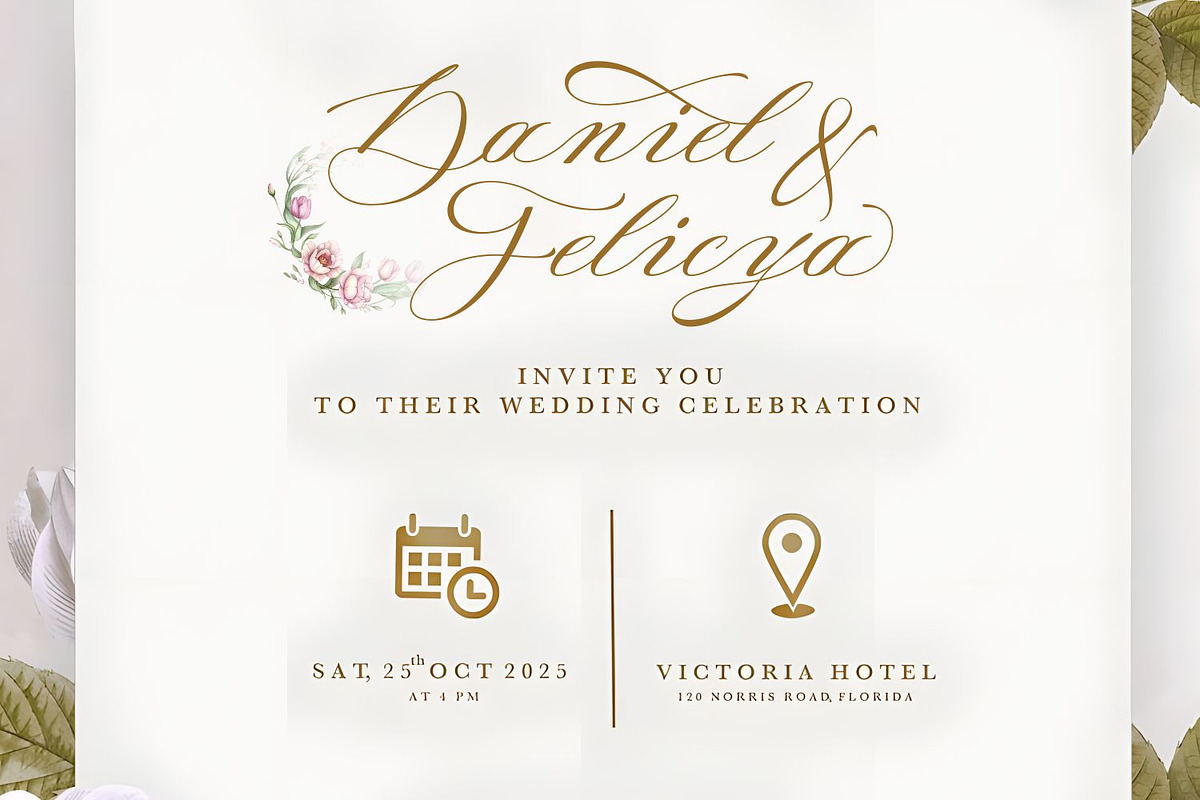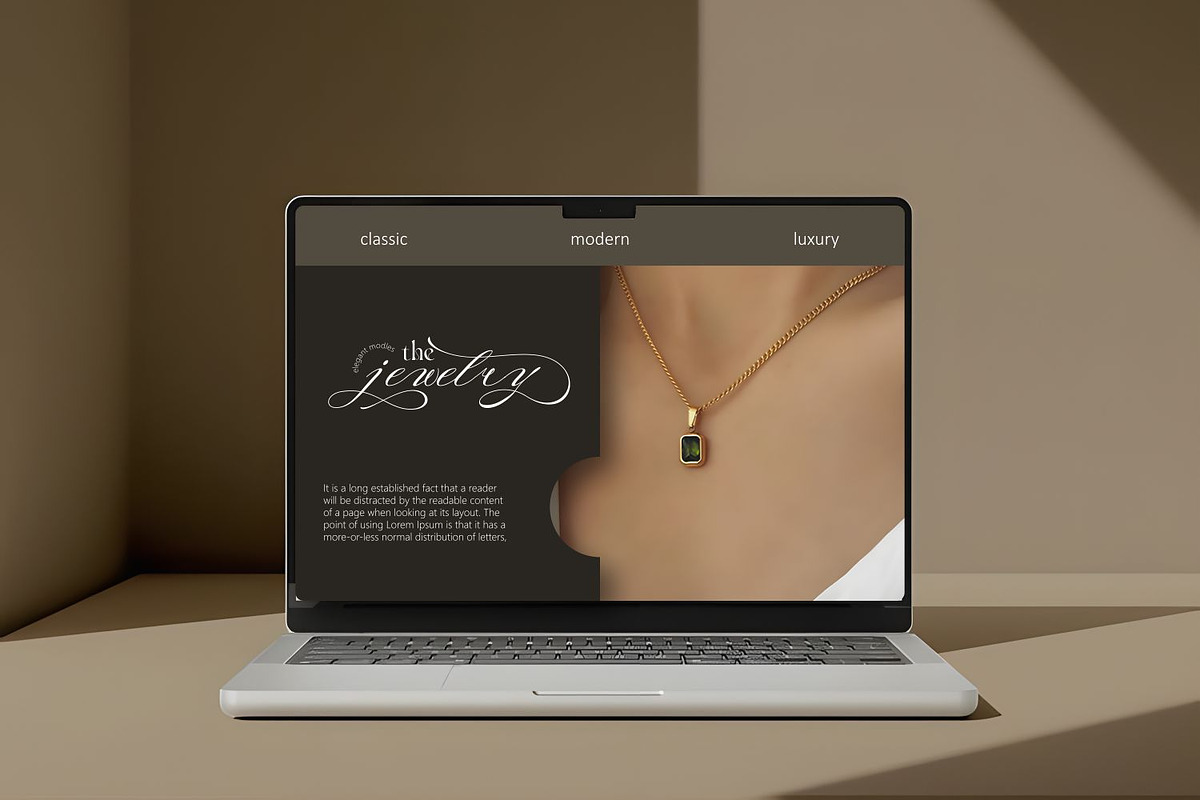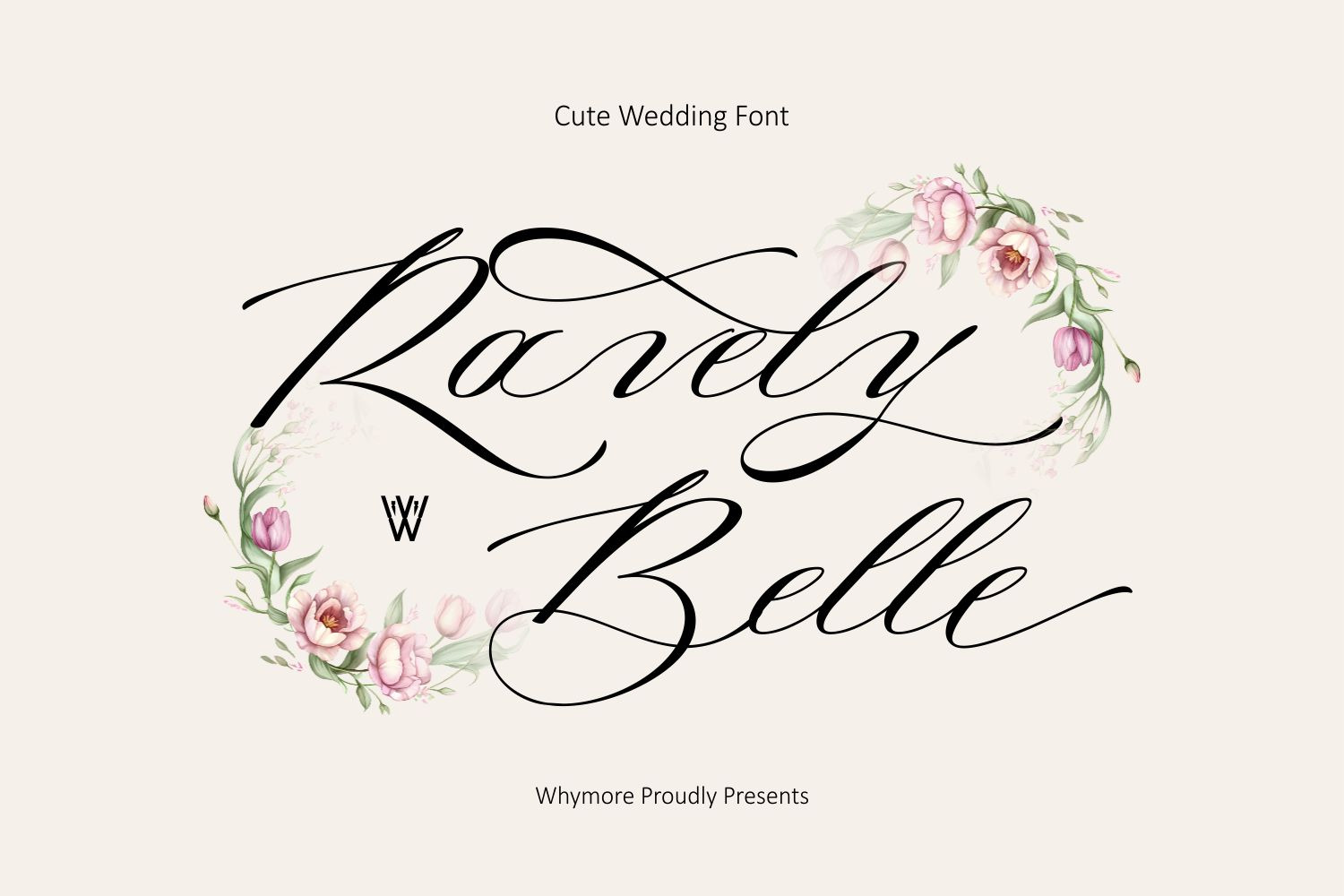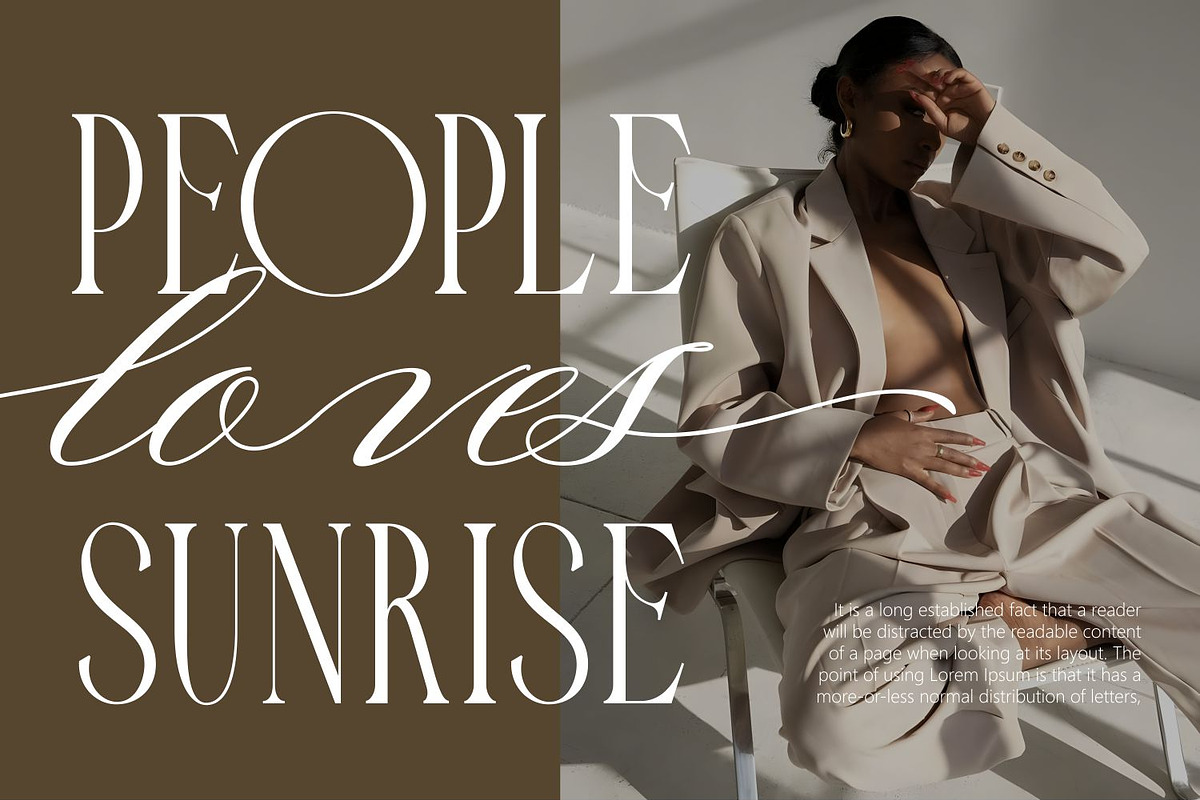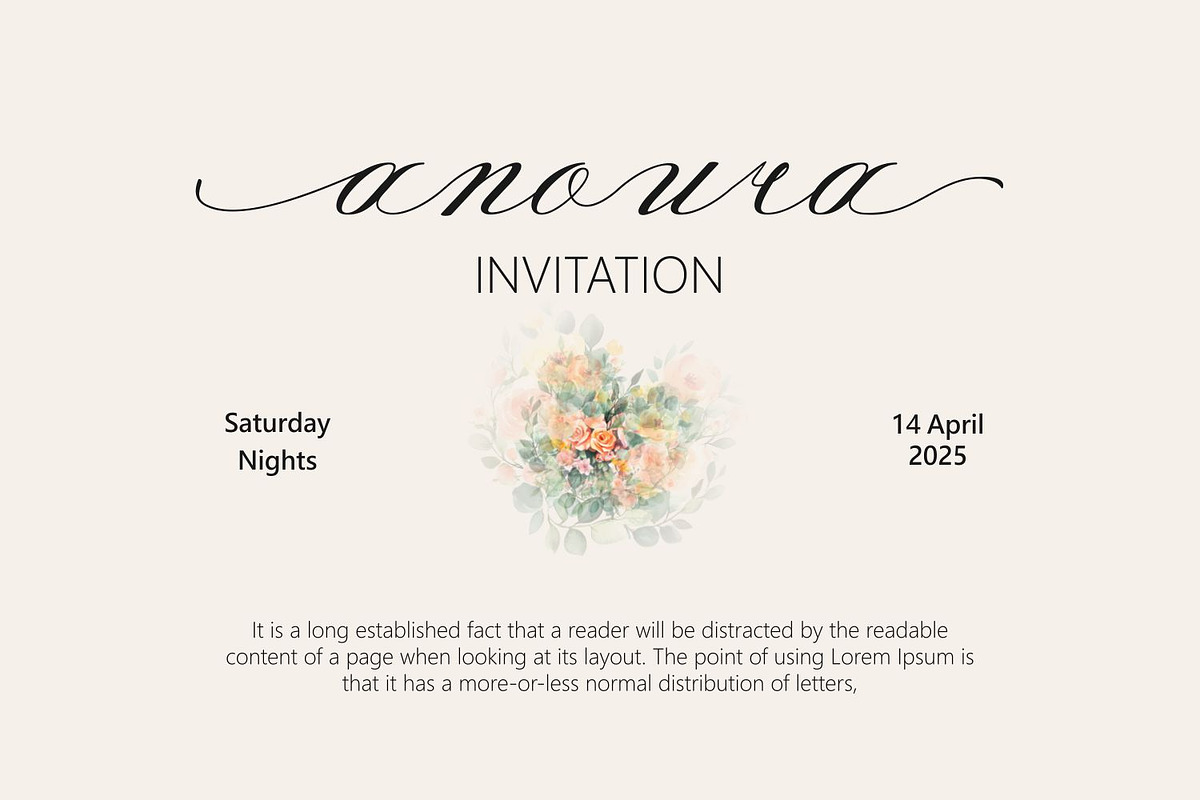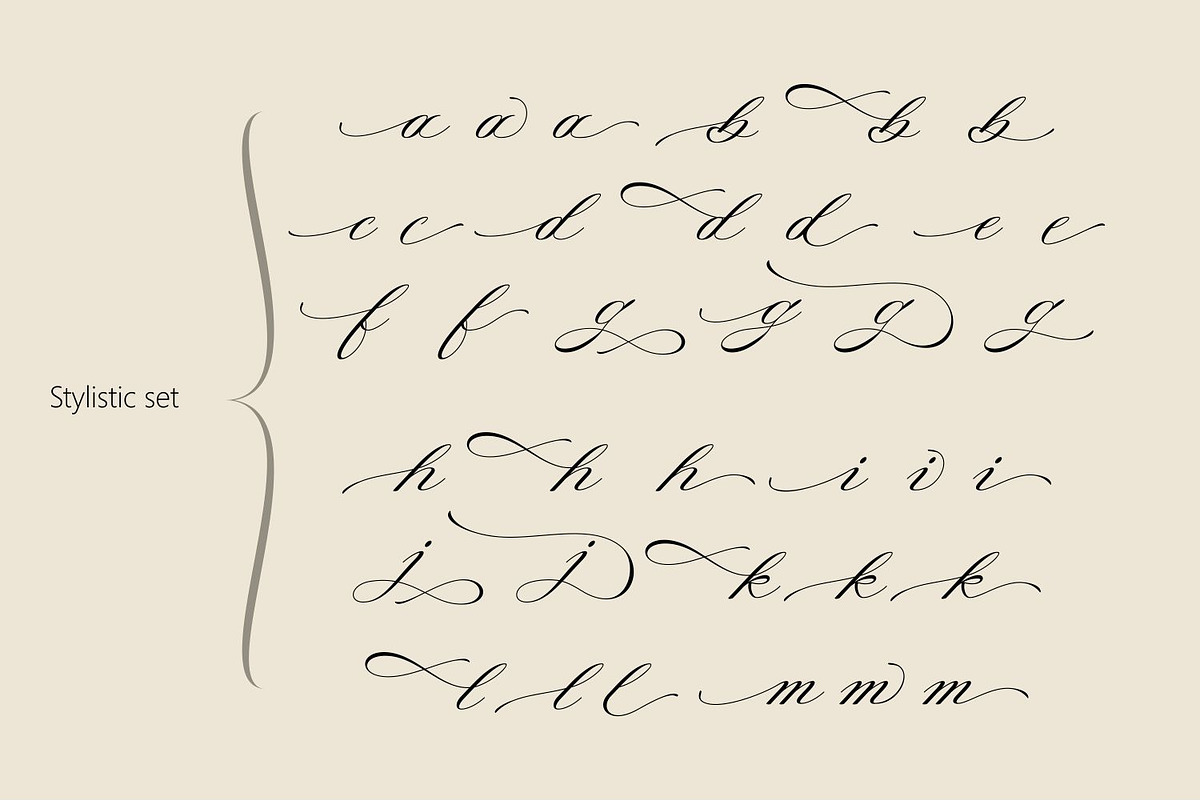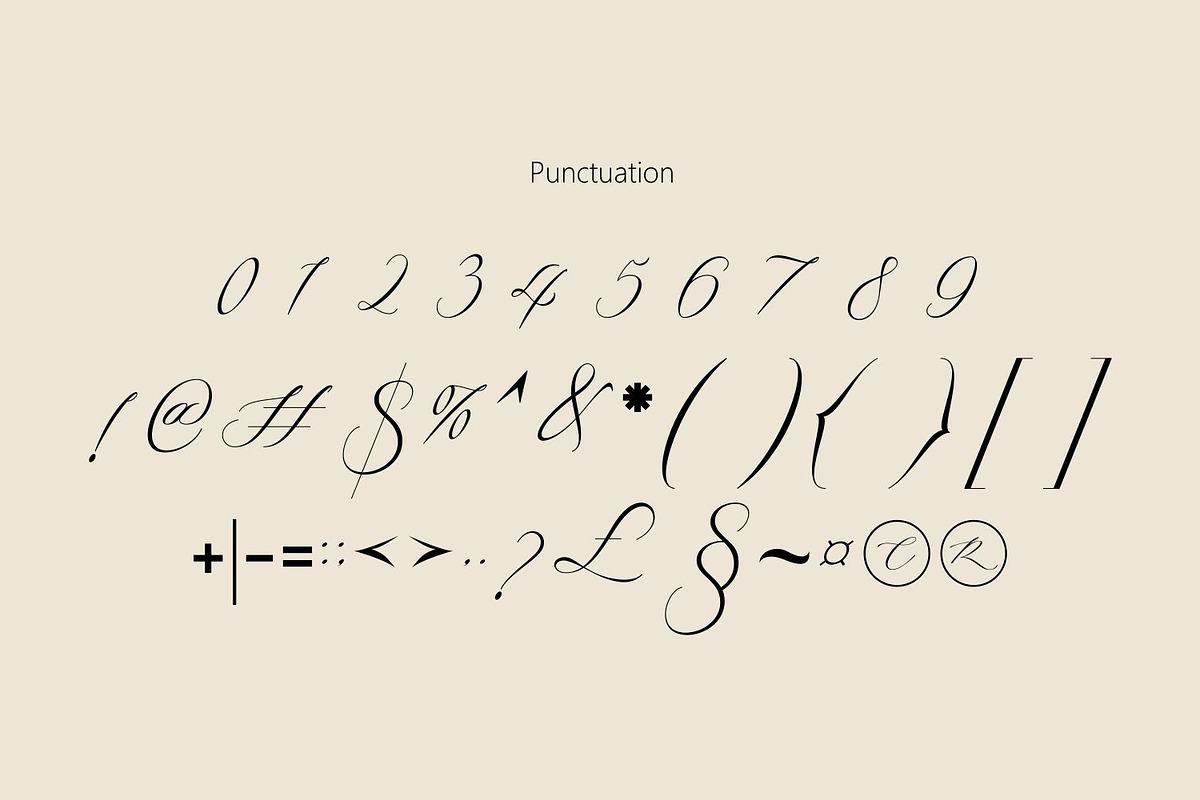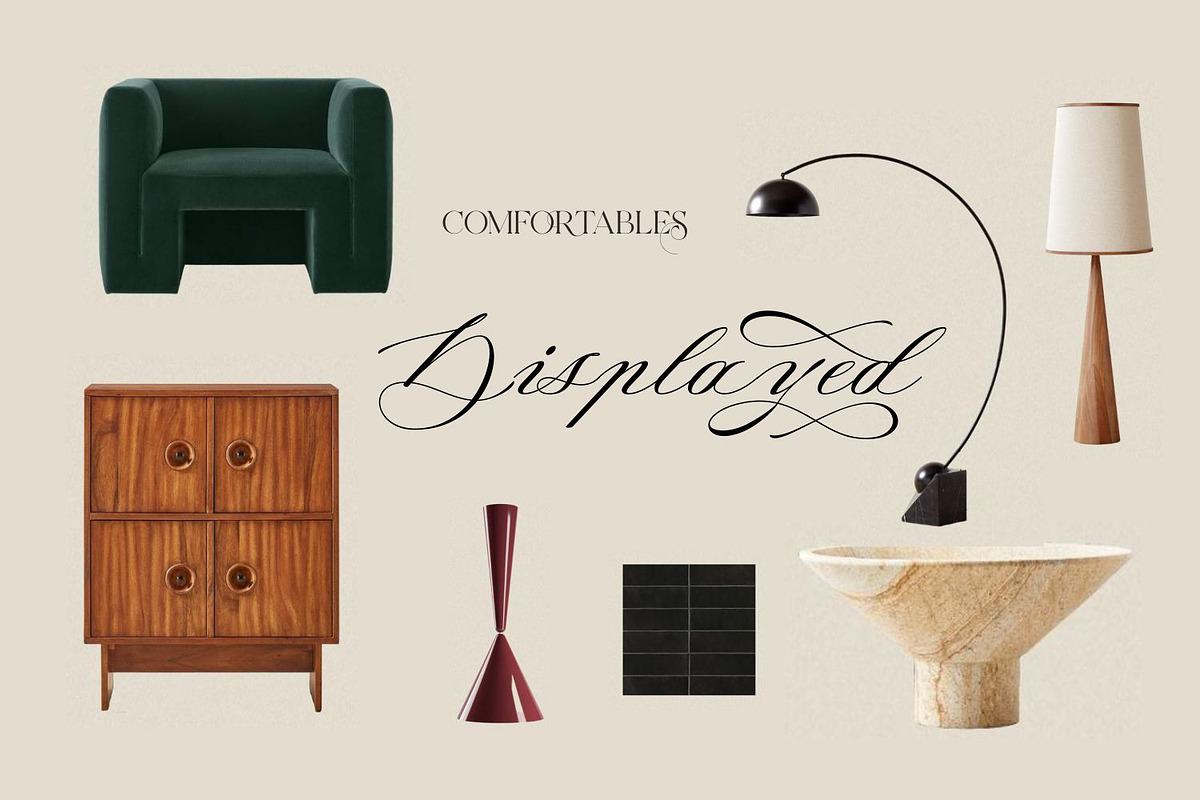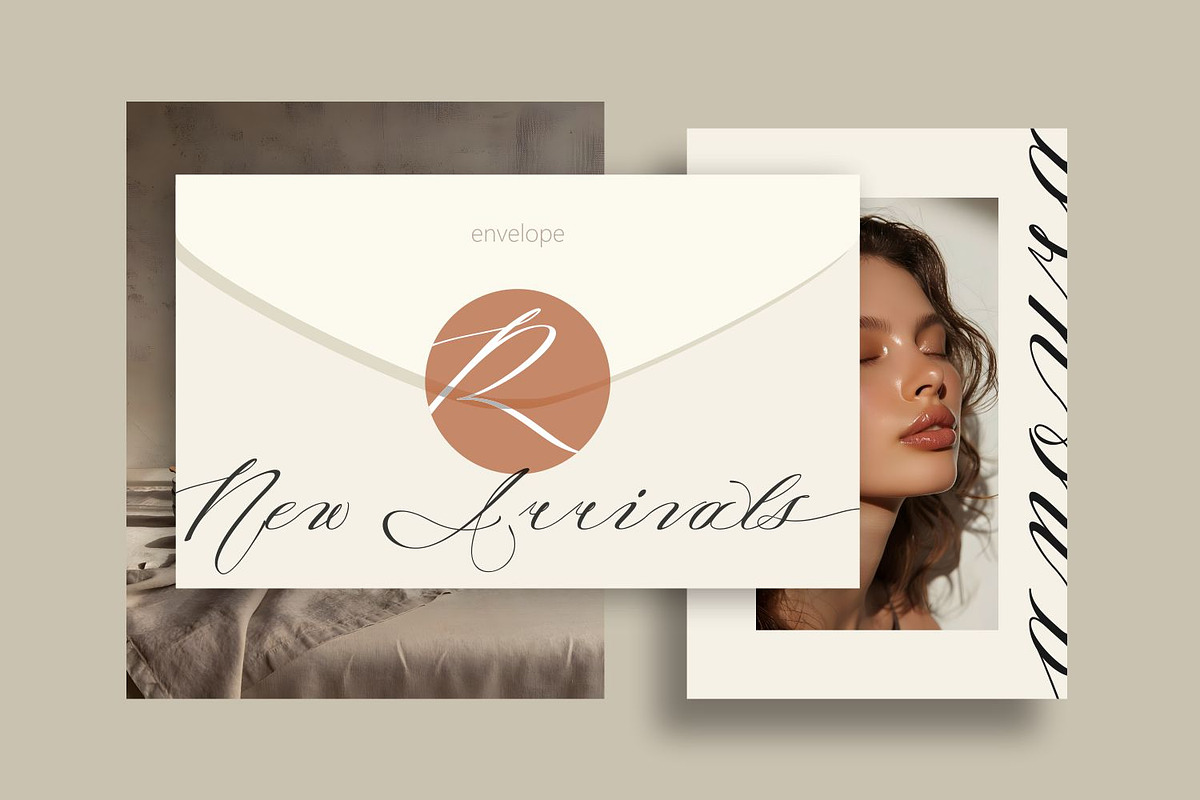
Ravely Belle Script Wedding Font
Elevate your design projects with Ravely Belle Wedding Font | Handwritten Script Font for Cricut & Canva, a beautifully crafted font designed to bring elegance and sophistication to your creations. Perfect for wedding invitations, branding, logos, greeting cards, and DIY projects, this modern script font features smooth curves and a natural handwritten feel.
Make your designs stand out with this modern handwritten script font, perfect for wedding and branding projects!